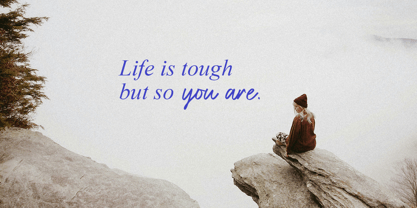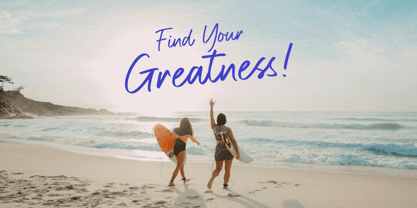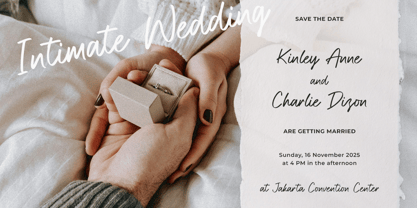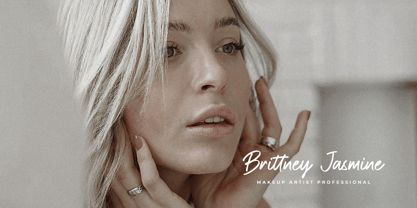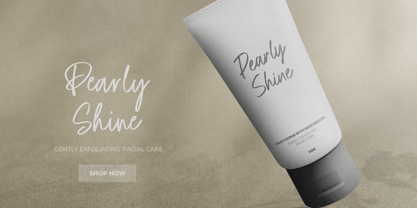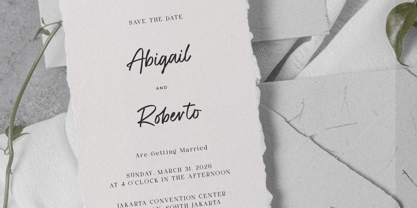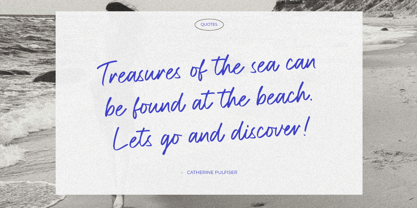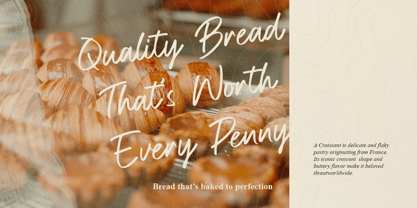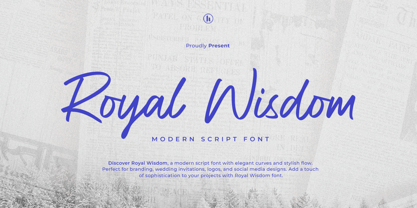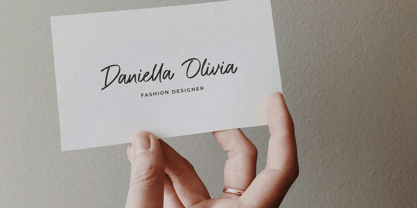
Royal Wisdom
by Heinzel Std
The Royal Wisdom Font Family was designed by Nofi Sofyan Hadi and published by Heinzel Std. Royal Wisdom contains 1 styles. More about this family
Royal Wisdom is a modern script font that exudes elegance and sophistication. With its smooth curves, graceful strokes, and stylish flow, this font is perfect for adding a luxurious touch to your design projects. Ideal for branding, wedding invitations, logo design, social media posts, and product packaging, Royal Wisdom brings a sense of class and creativity to any visual concept. Its modern calligraphic style makes it stand out, offering both readability and artistic charm for professional and personal designs.